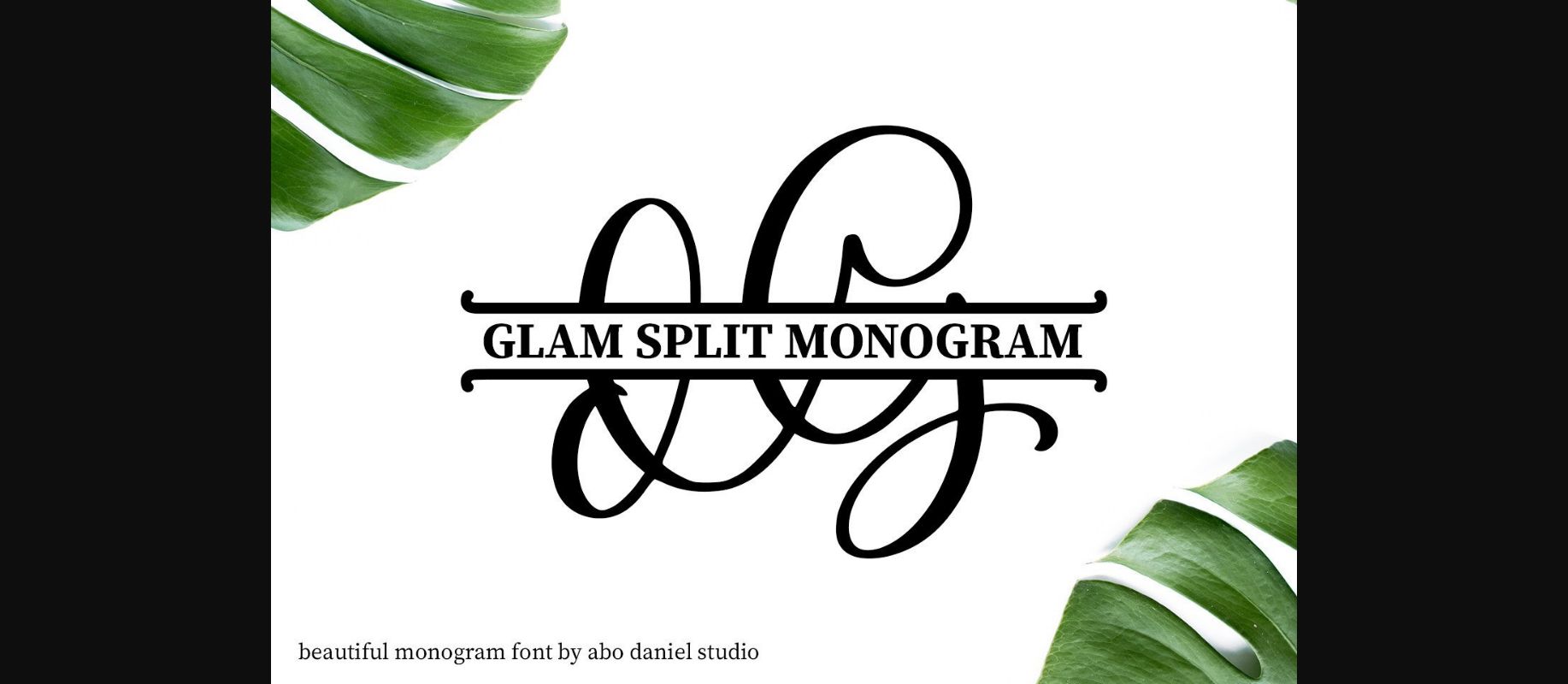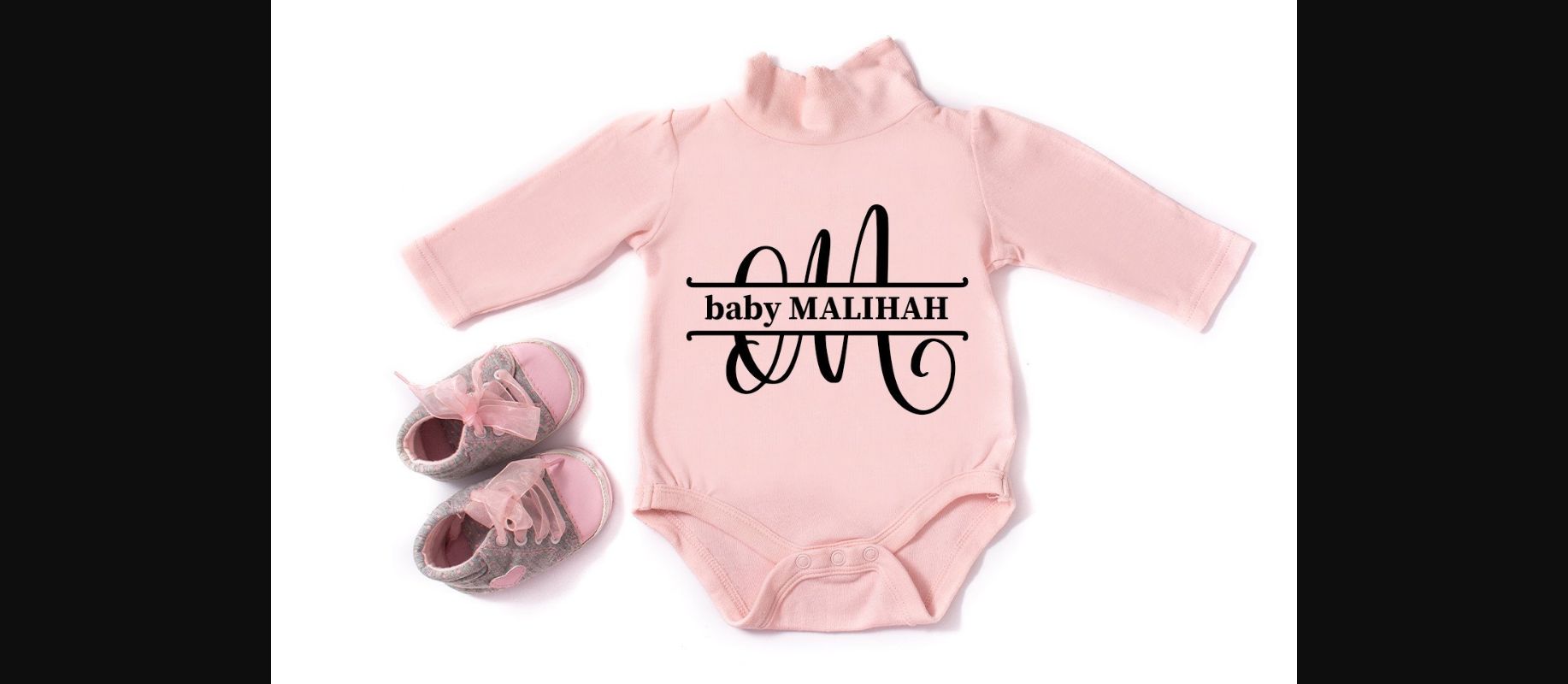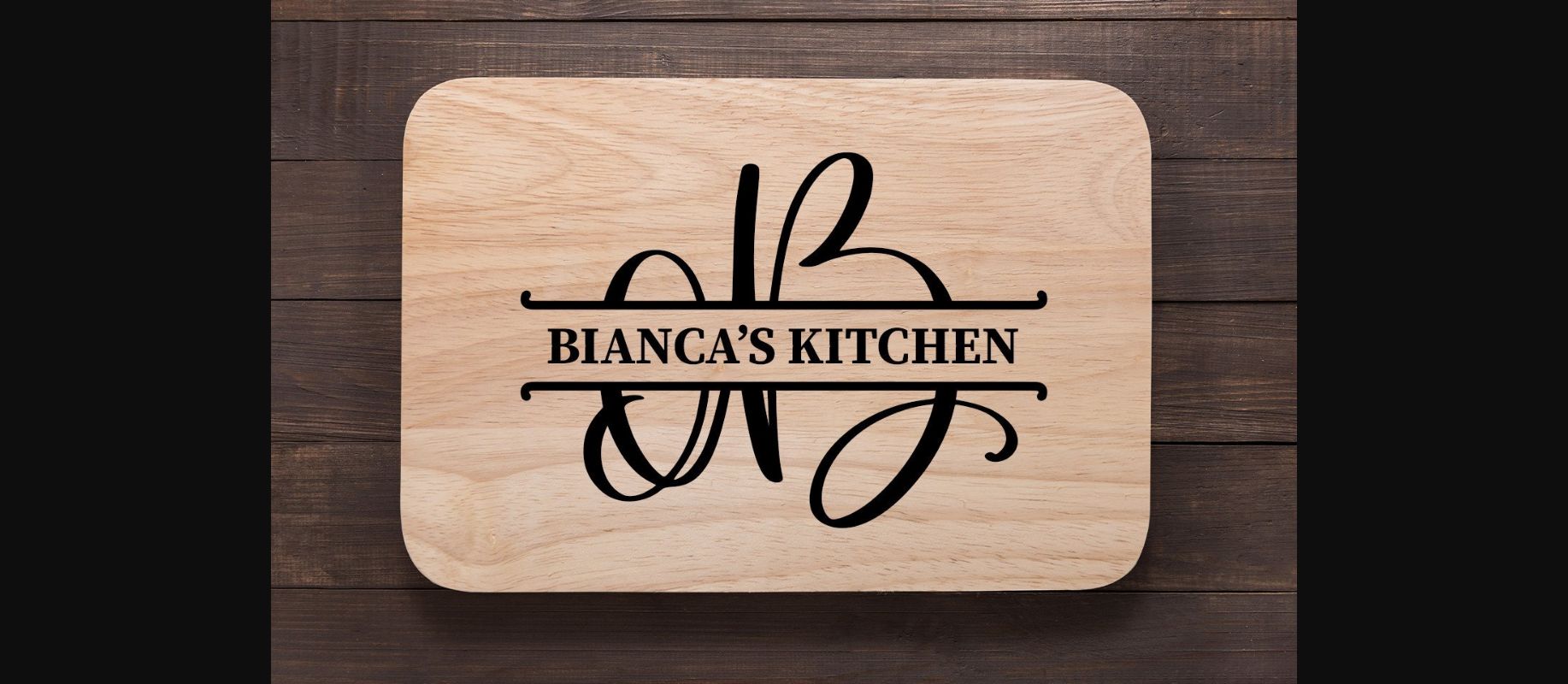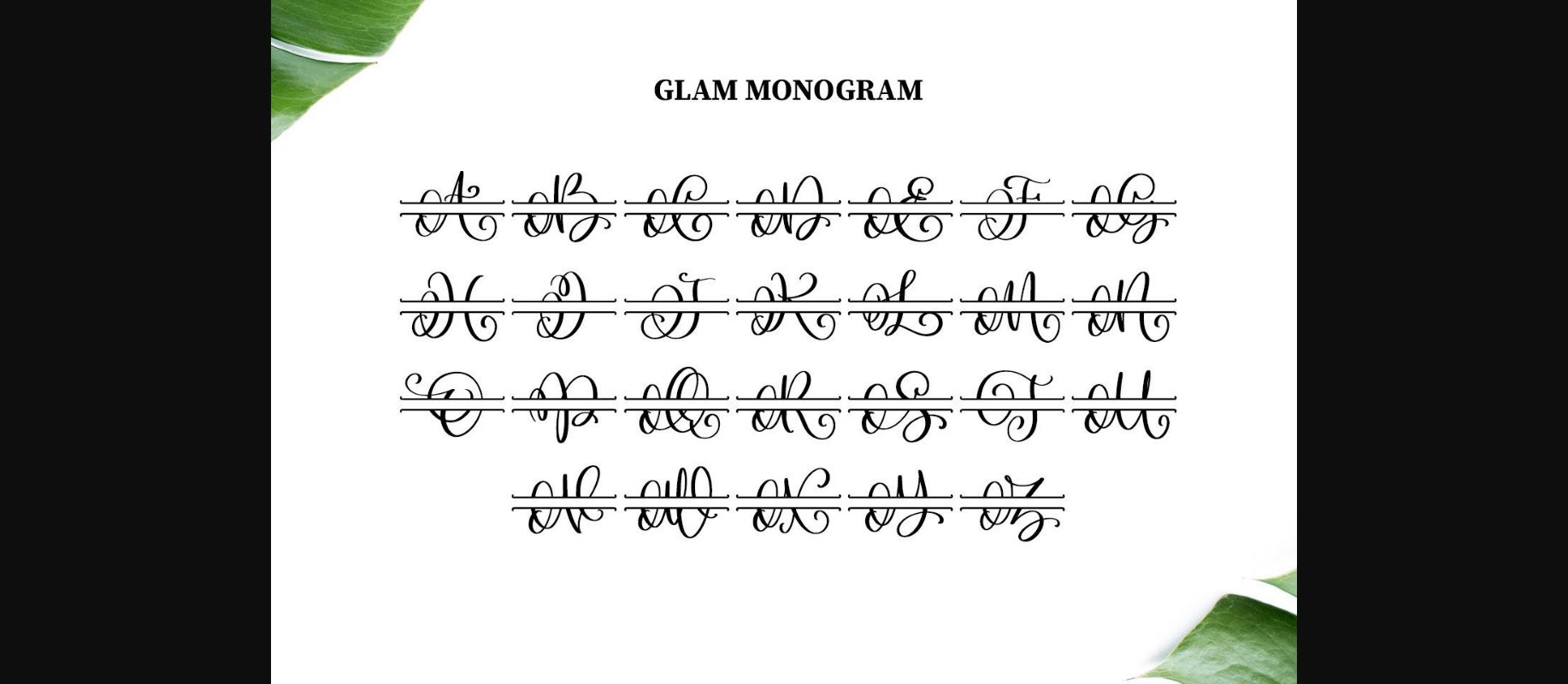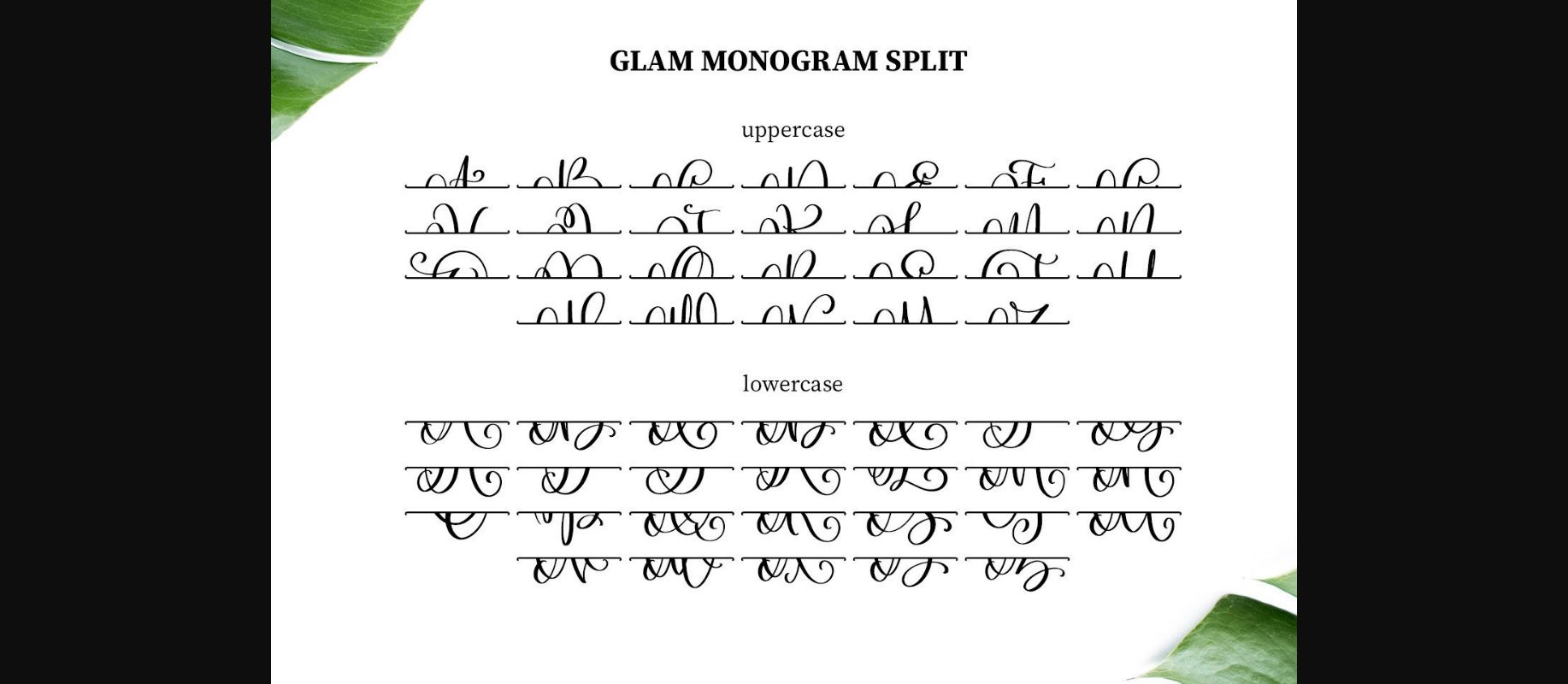
About Glam Monogram Font
Glam Monogram is a beautiful monogram decorative font specially designed for crafters.
It is great for t-shirt designs, logos, quotes, mugs, tote bag designs, cards, banners, social media, and other craft projects.